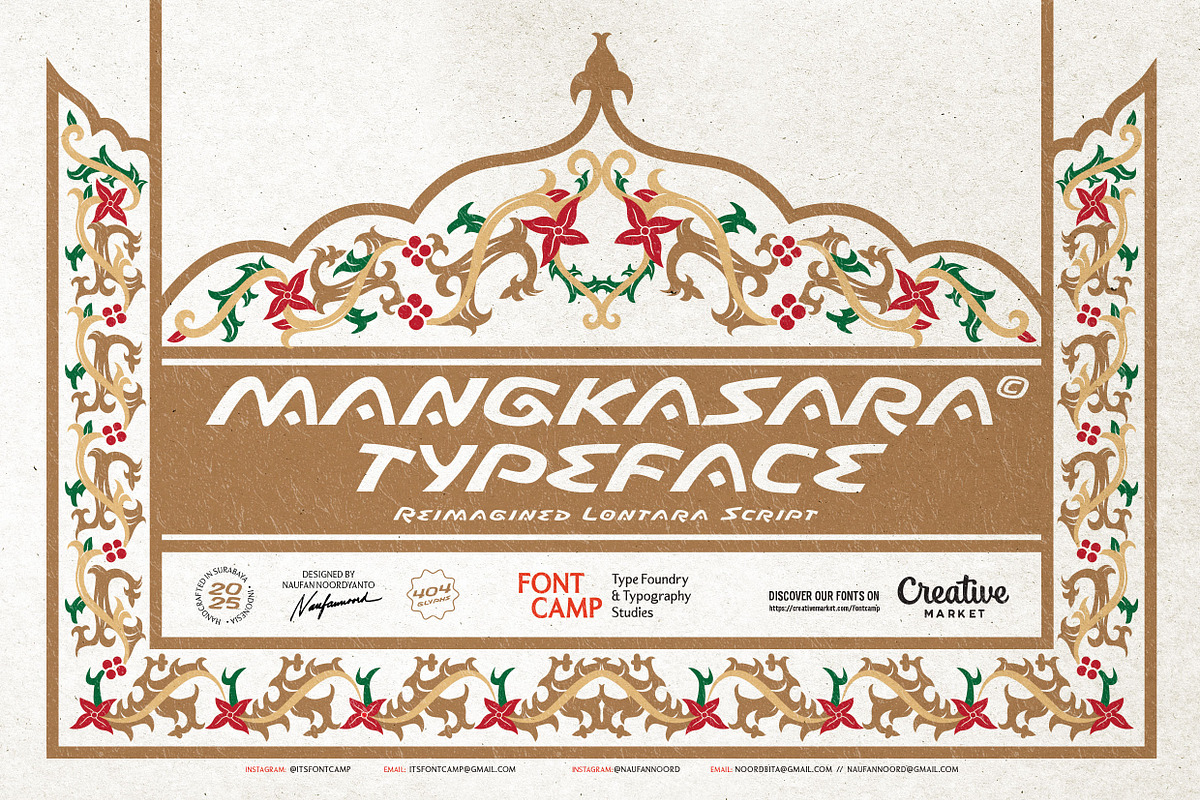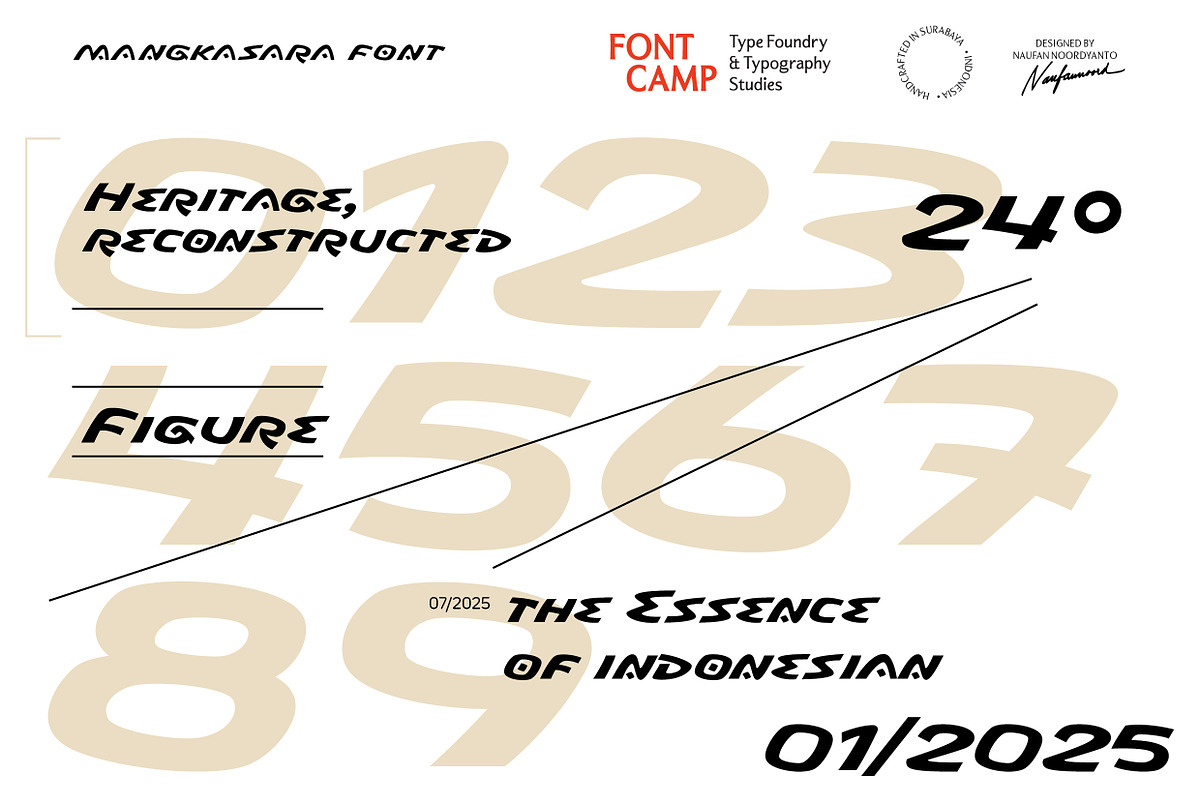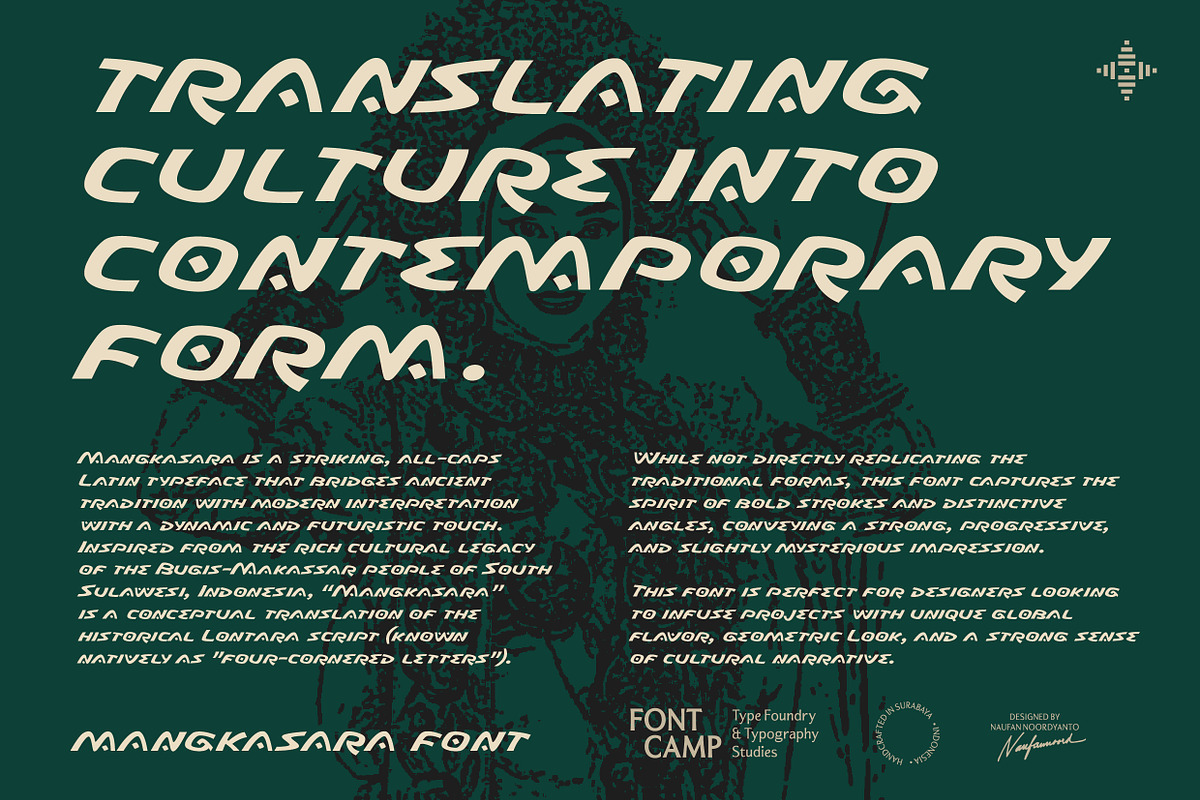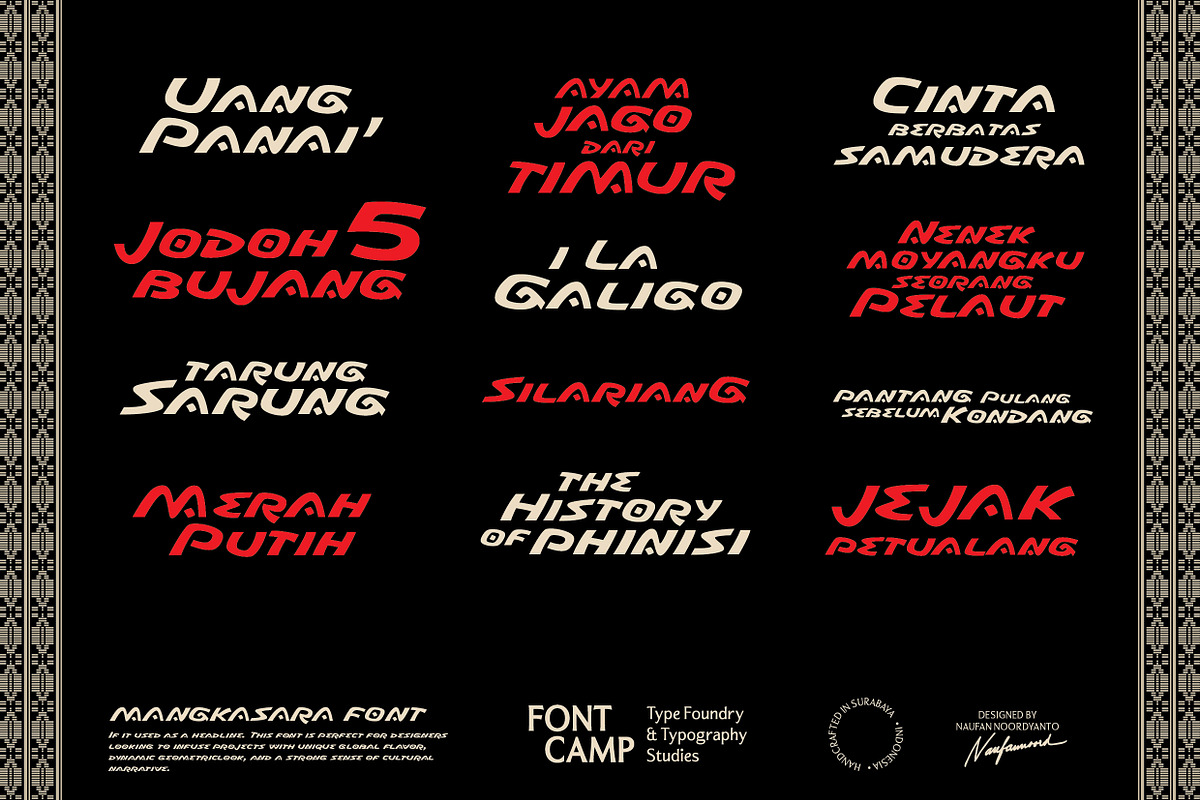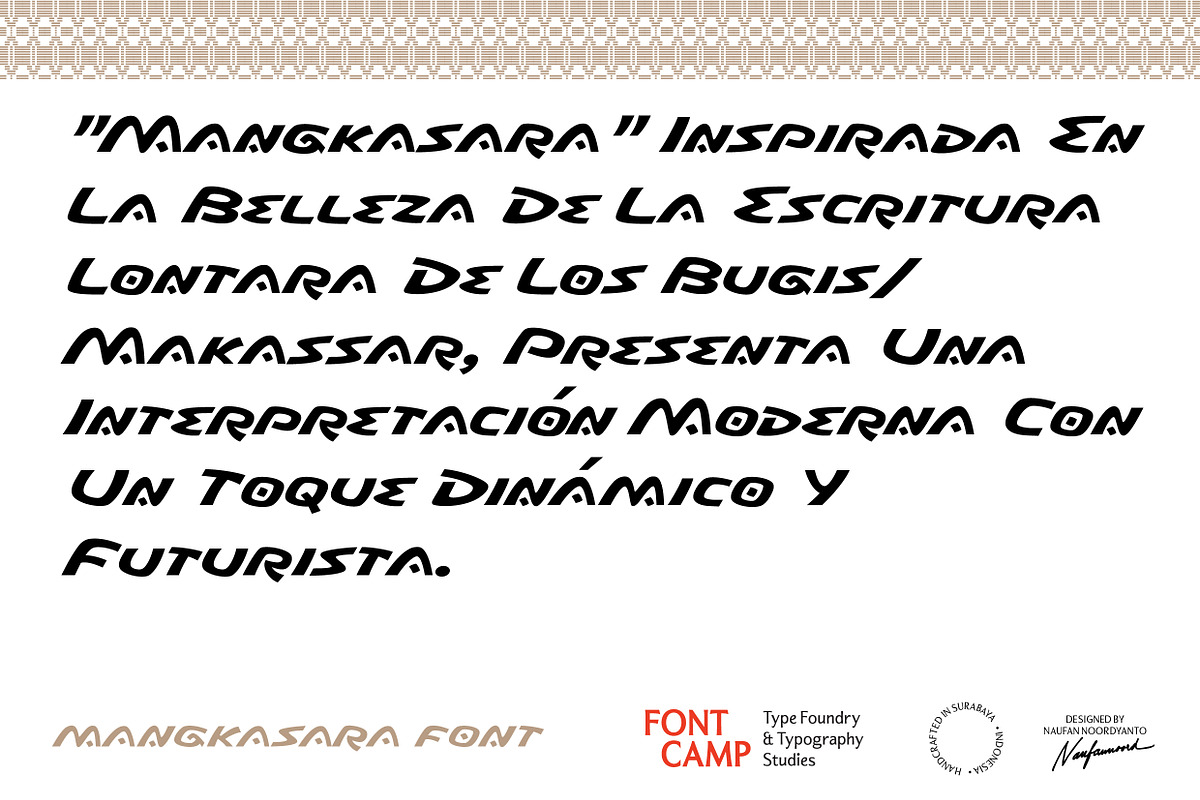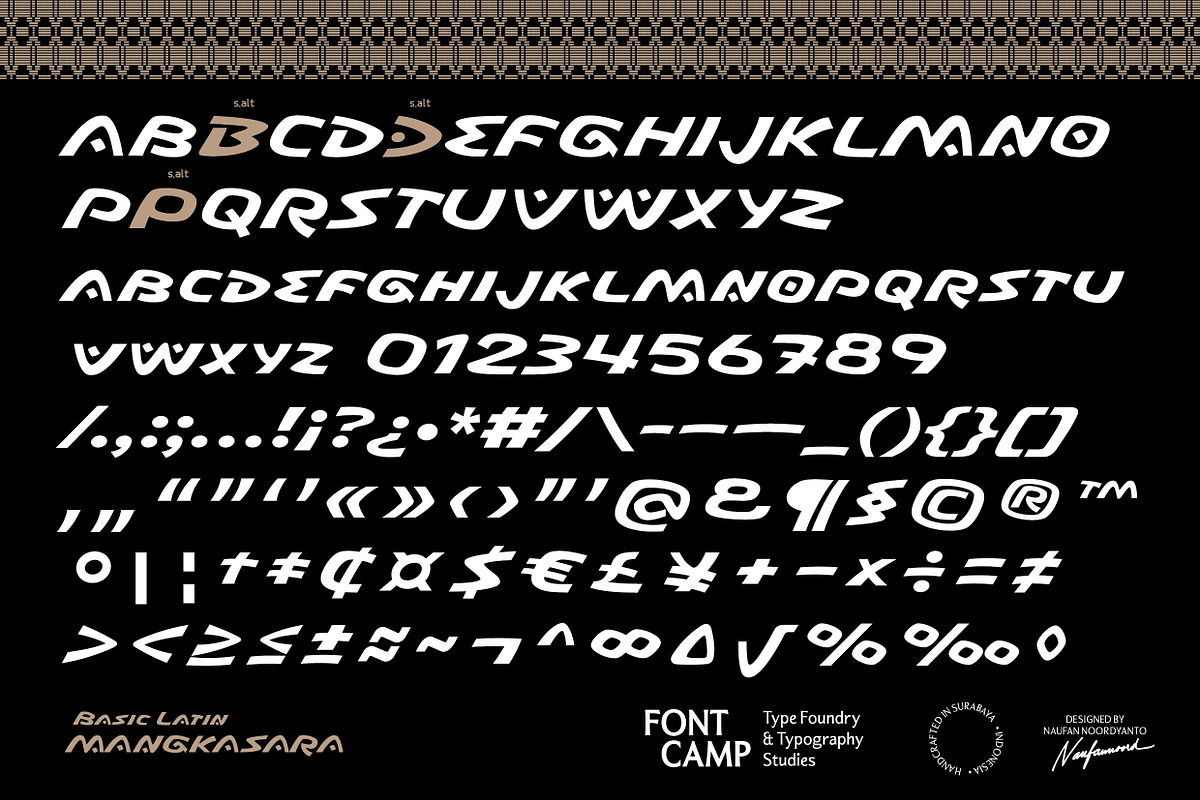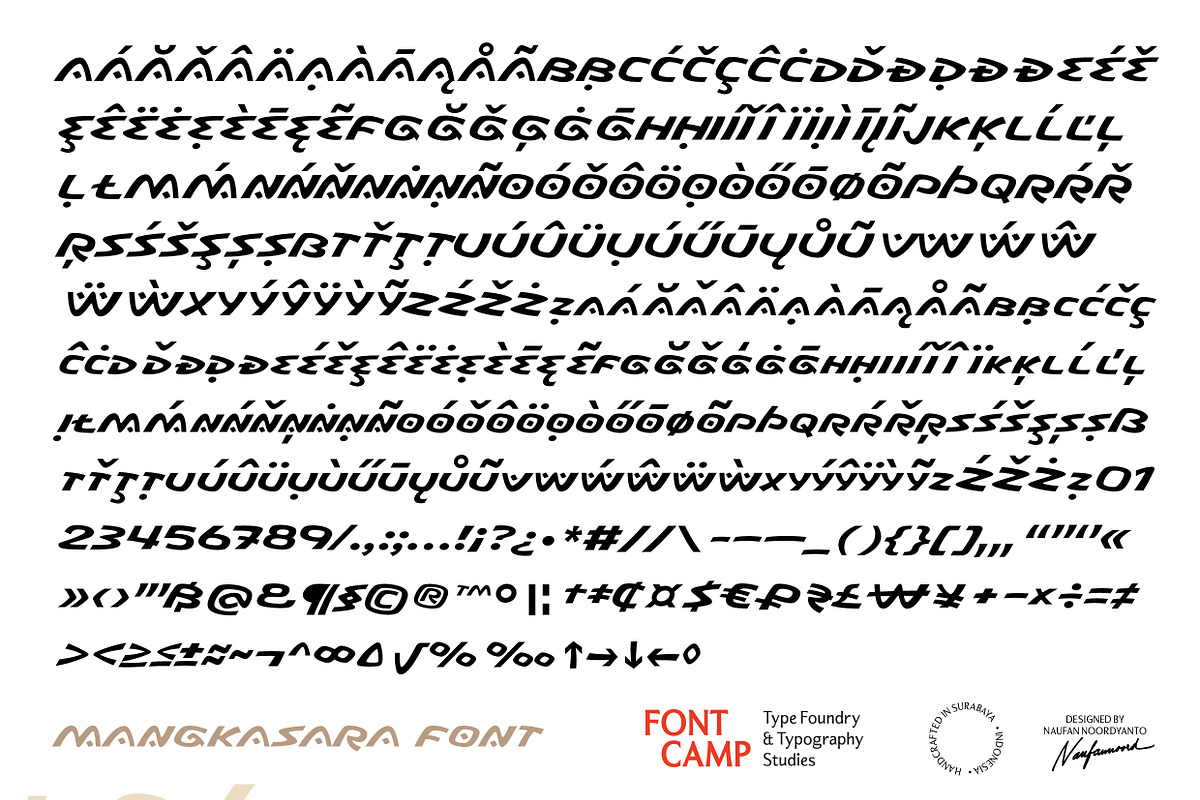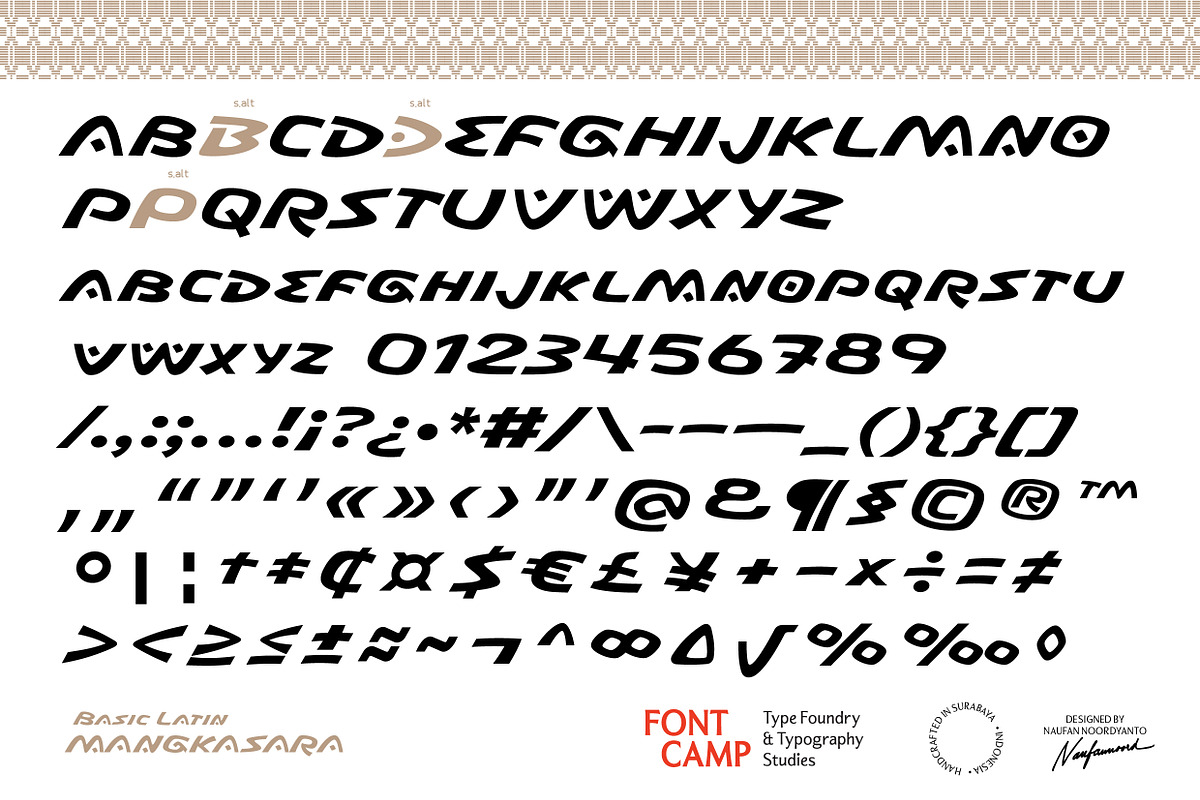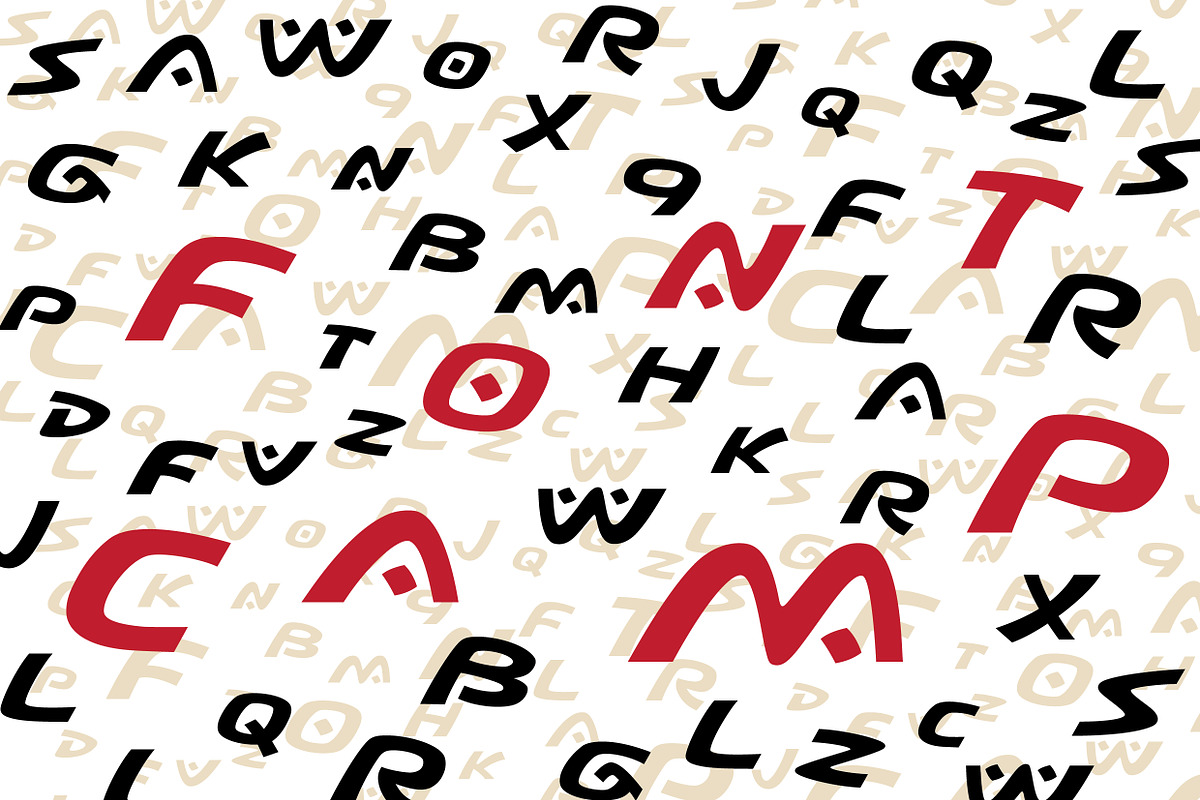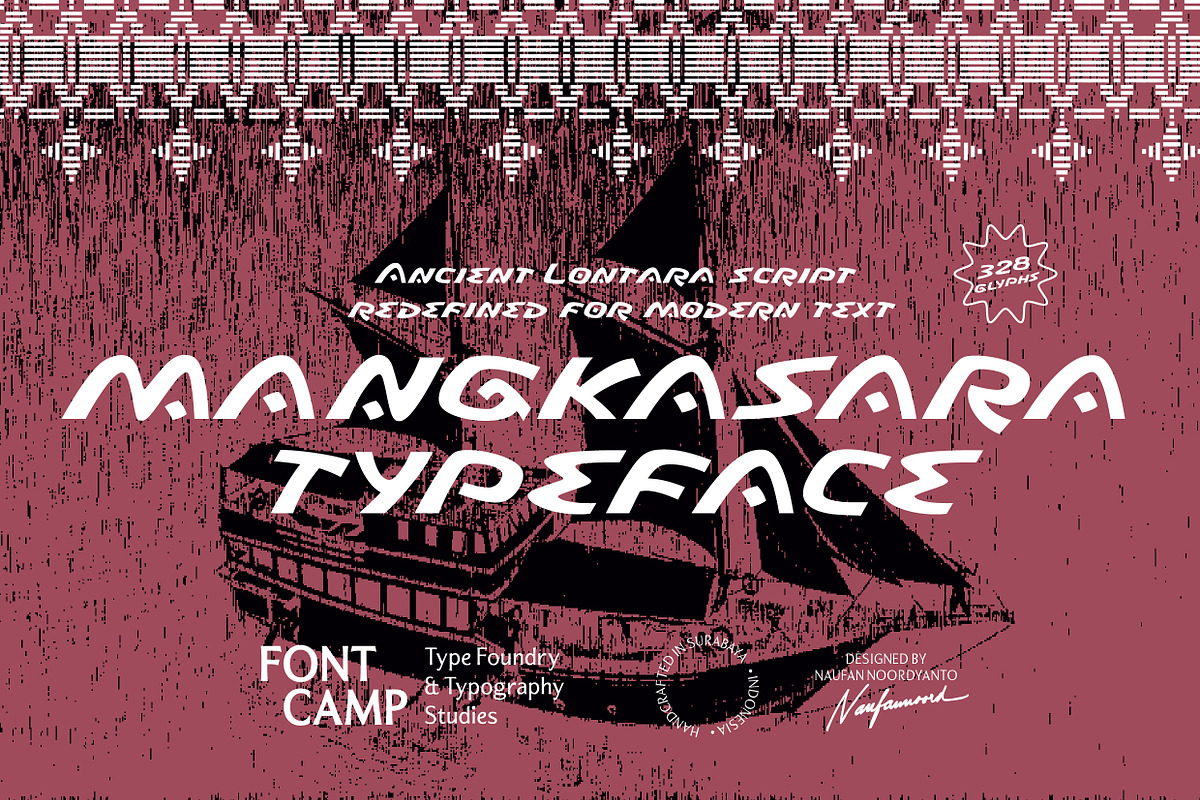
Mangkasara Font
Introducing a "Mangkasara" Font.
DESCRIPTION:
"Mangkasara," inspired by the beauty of the Lontara script of Bugis/Makassar, presents a modern interpretation with a dynamic and futuristic touch. While not directly replicating the traditional forms, this font captures the spirit of bold strokes and distinctive angles, conveying a strong, progressive, and slightly mysterious impression.
Features: 332 Glyphs, supporting 34 languages (including diacritics); All-caps Latin.